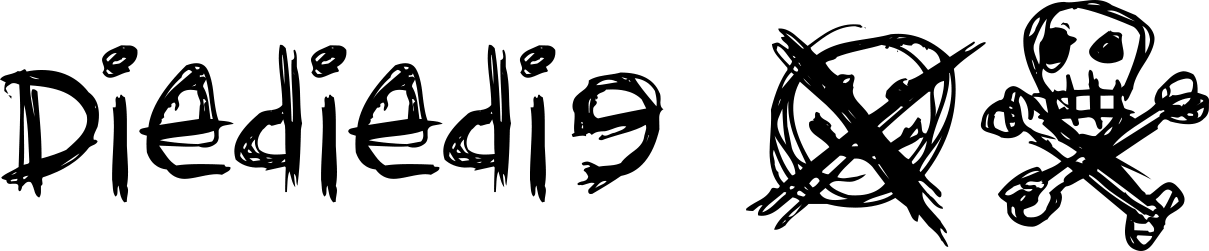
Diediedie Font
Diediedie is a scribbled font with an uneasy air about it. The bold characters, stressed through multiple pen strokes, seem edgy and anxious. It would be a great choice to use Diediedie in comic books, cartoons, and game…
Diediedie is a scribbled font with an uneasy air about it. The bold characters, stressed through multiple pen strokes, seem edgy and anxious. It would be a great choice to use Diediedie in comic books, cartoons, and games when you want to evoke these kinds of feelings in your target audience.